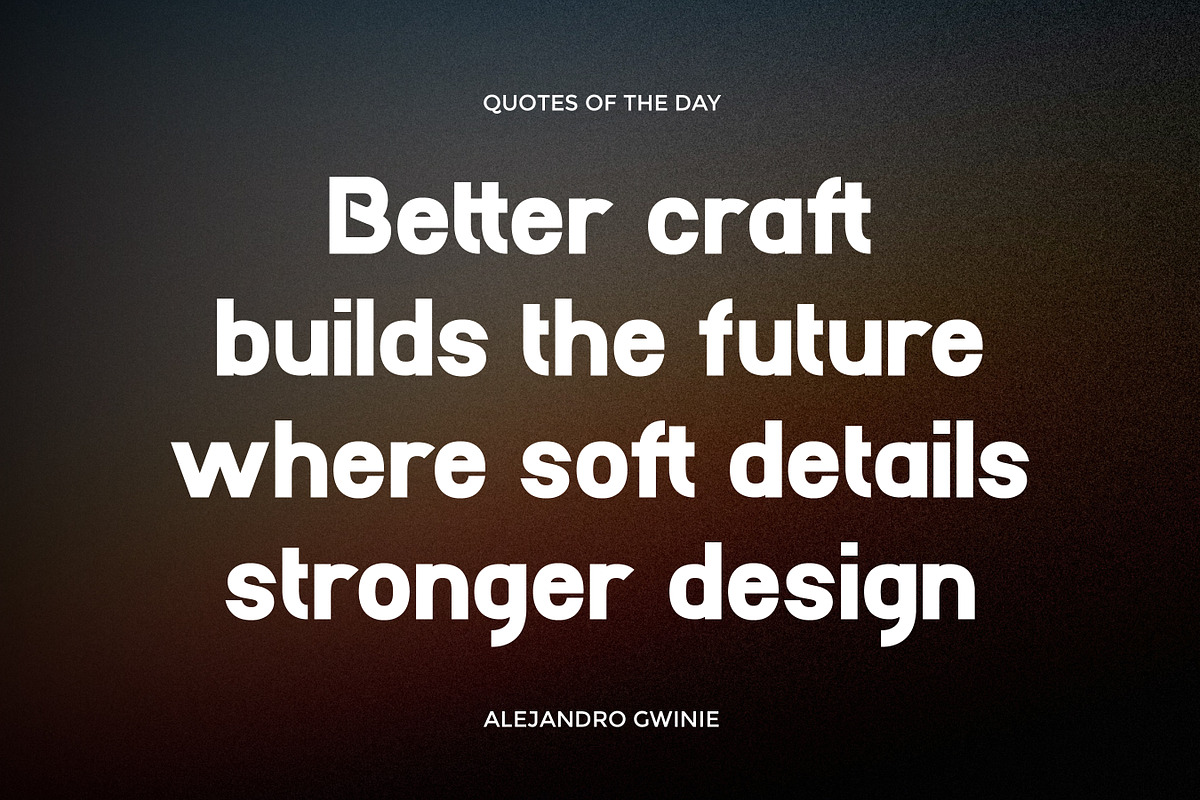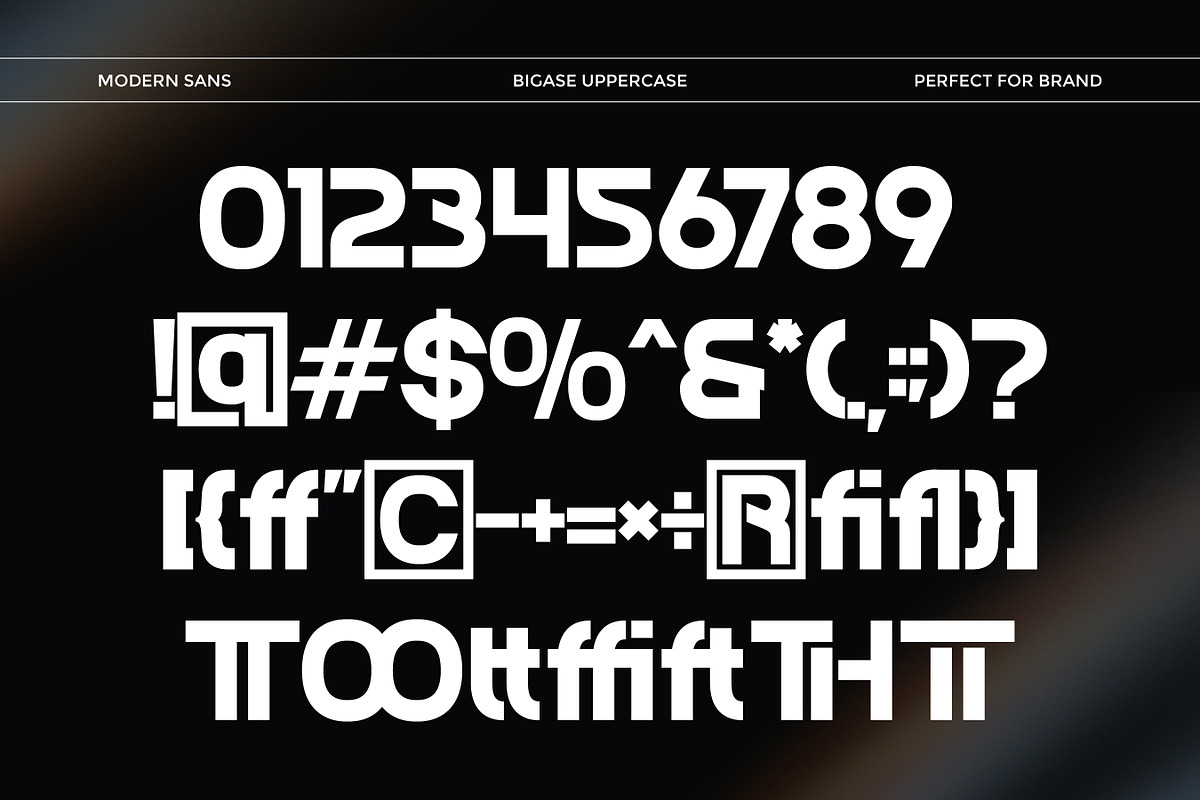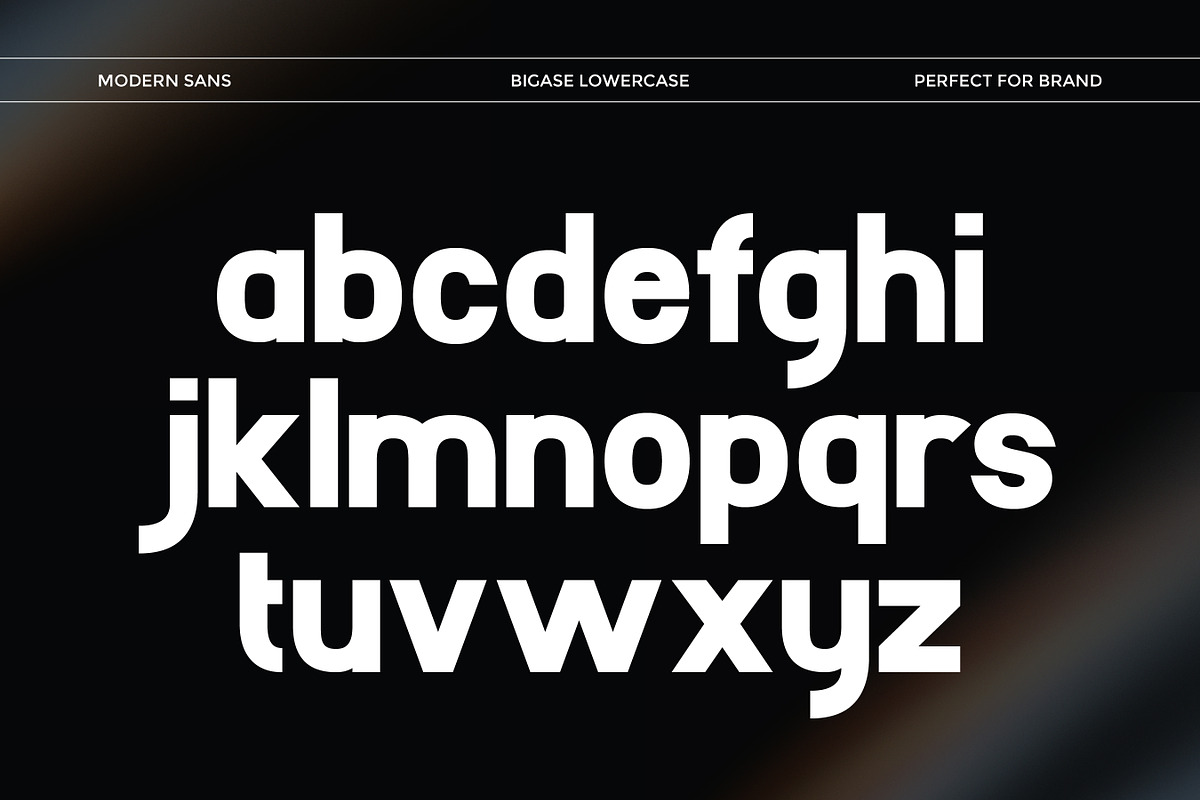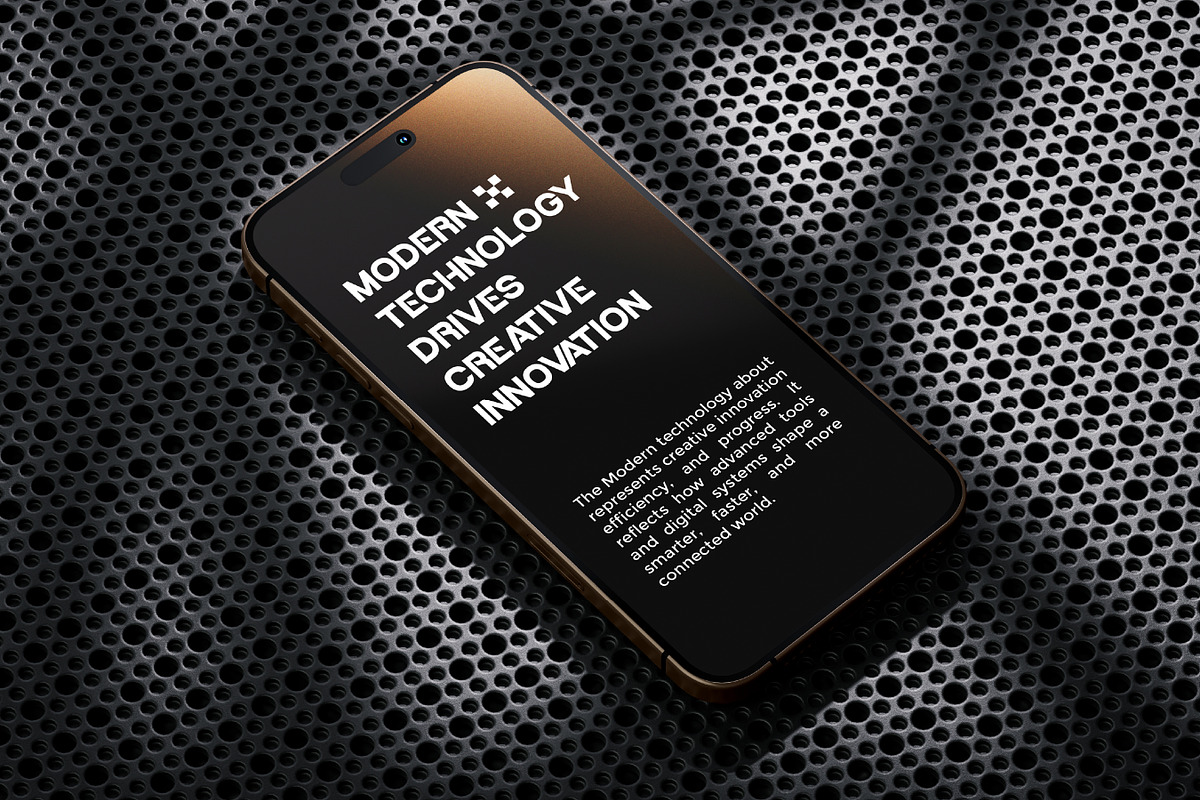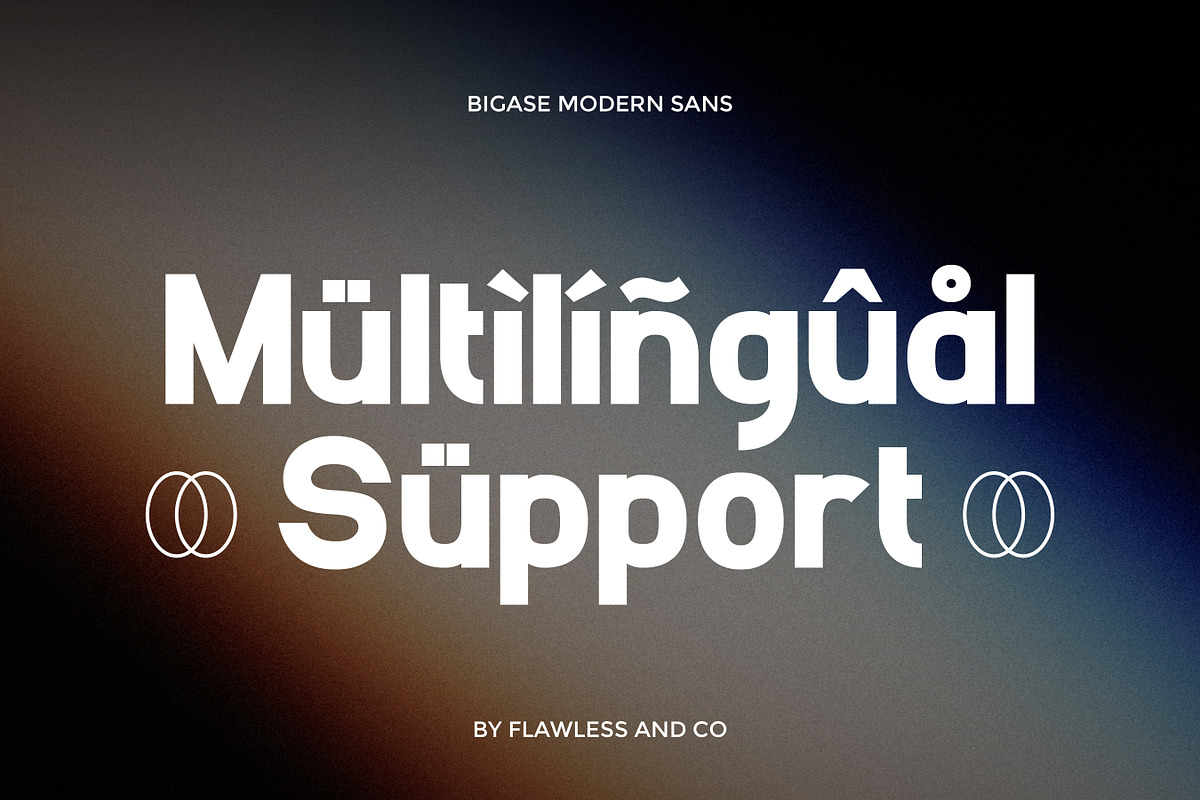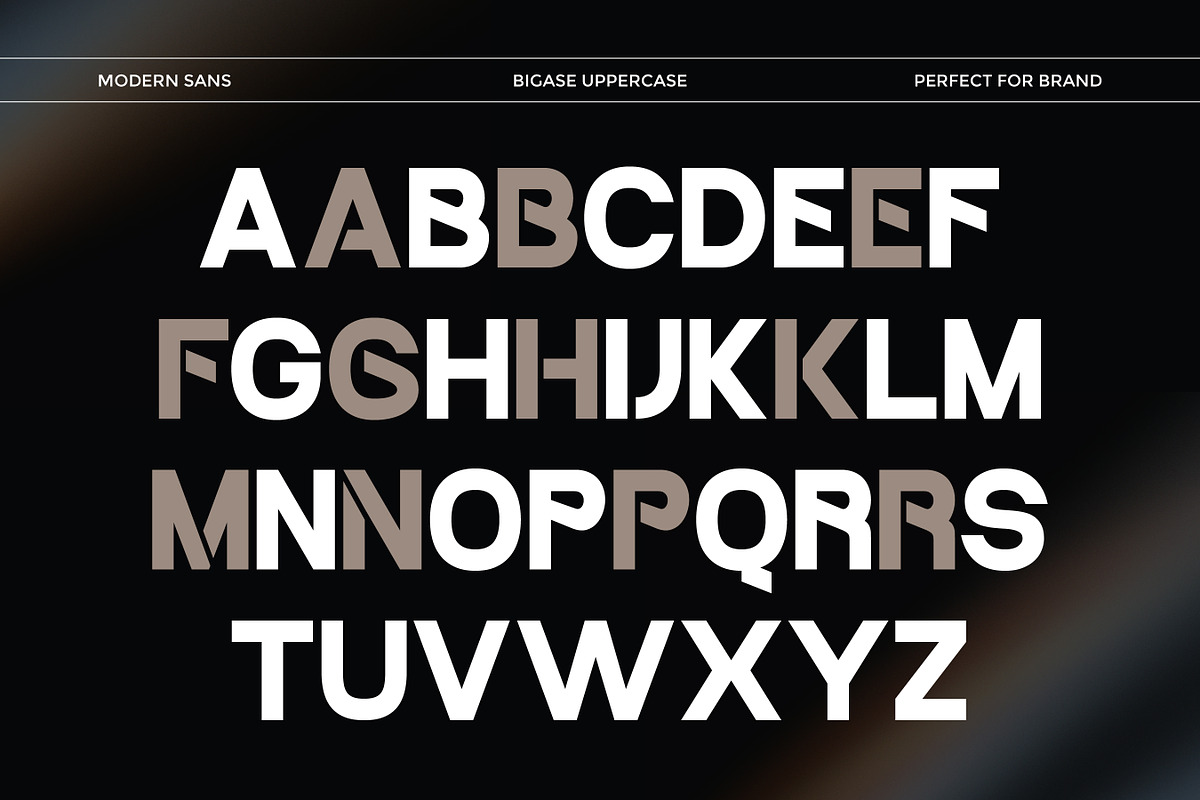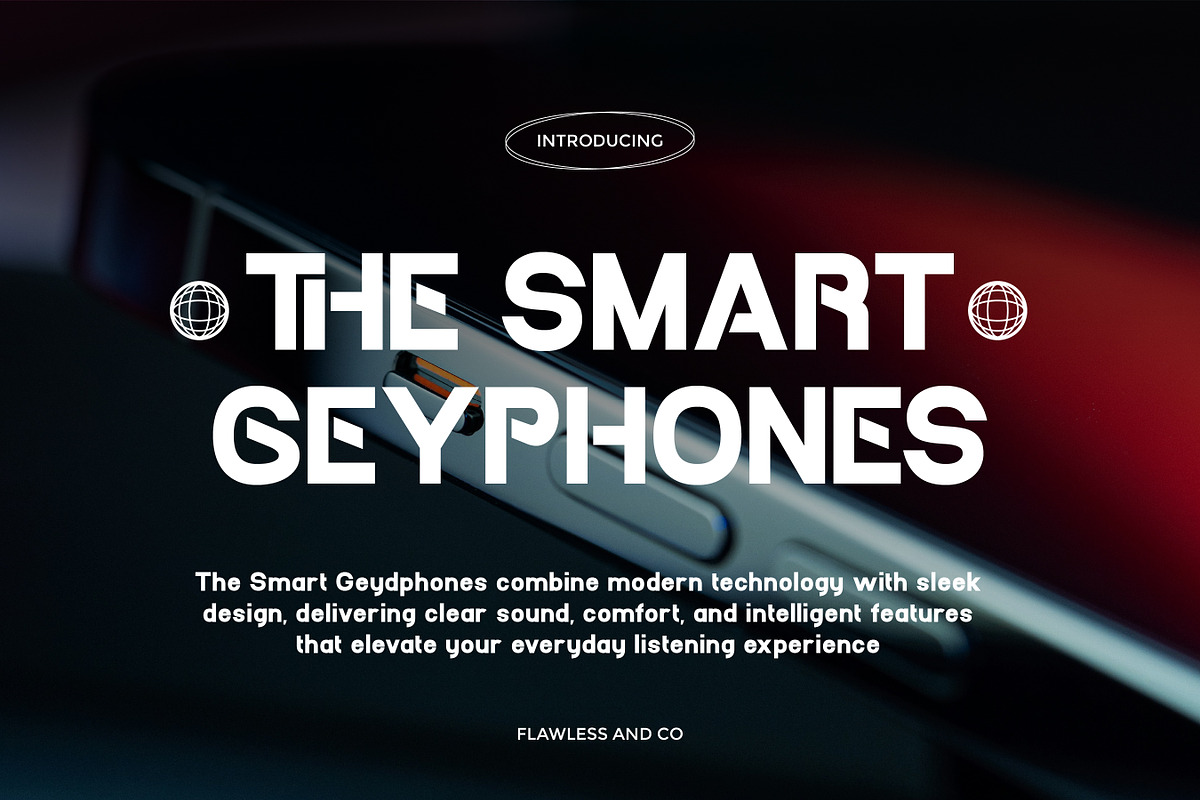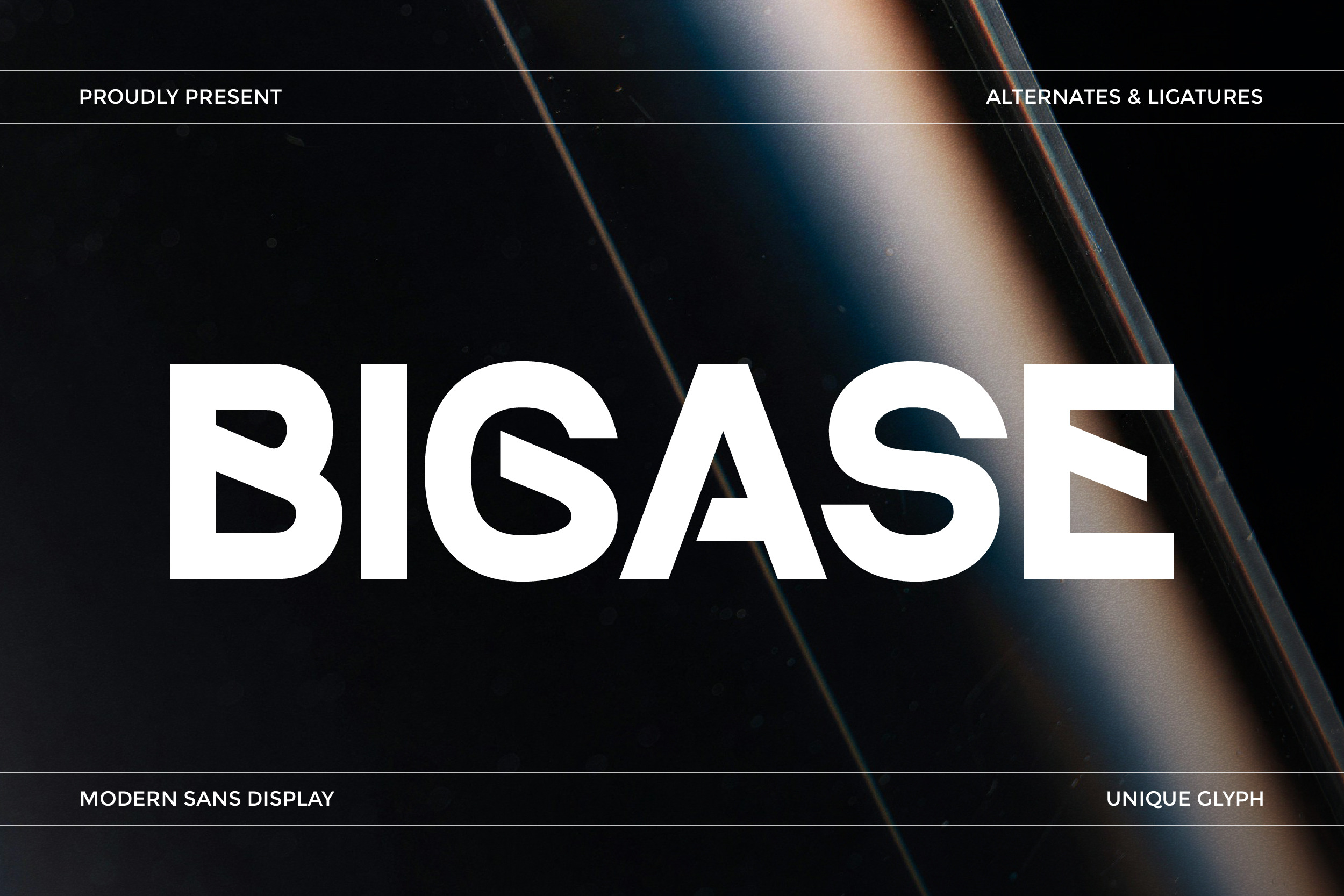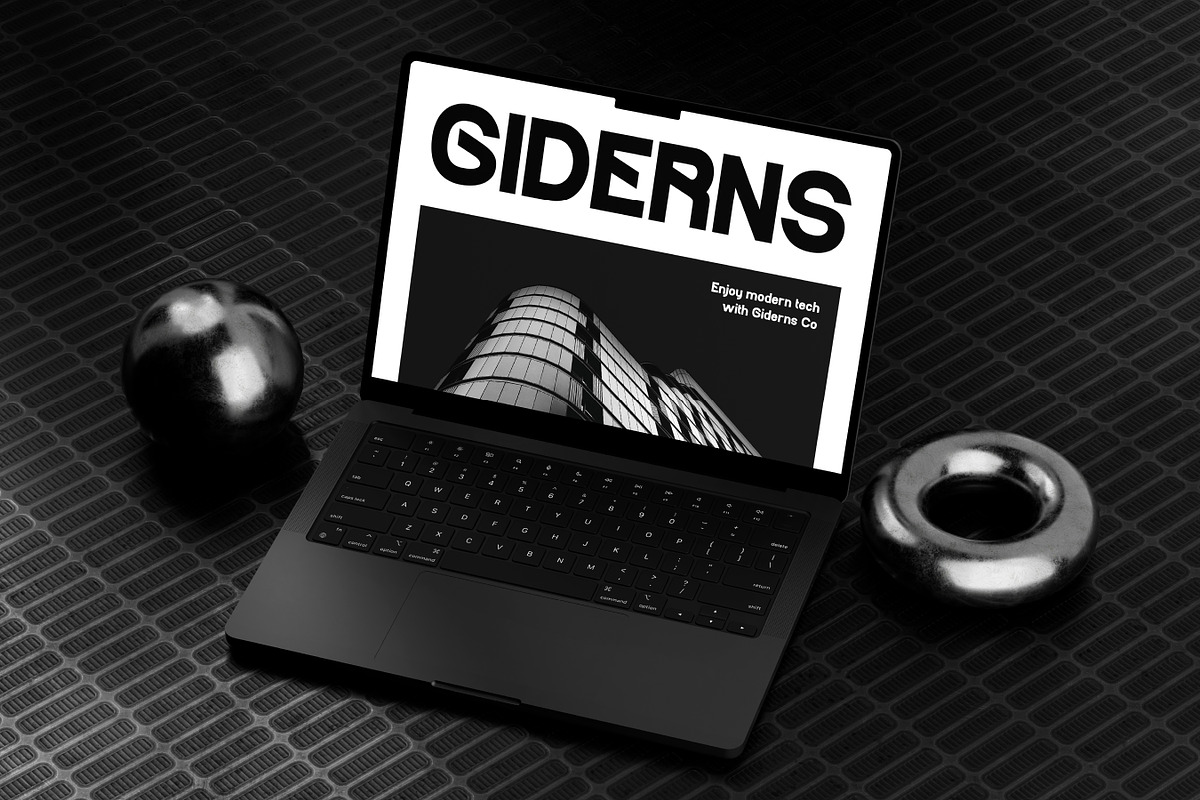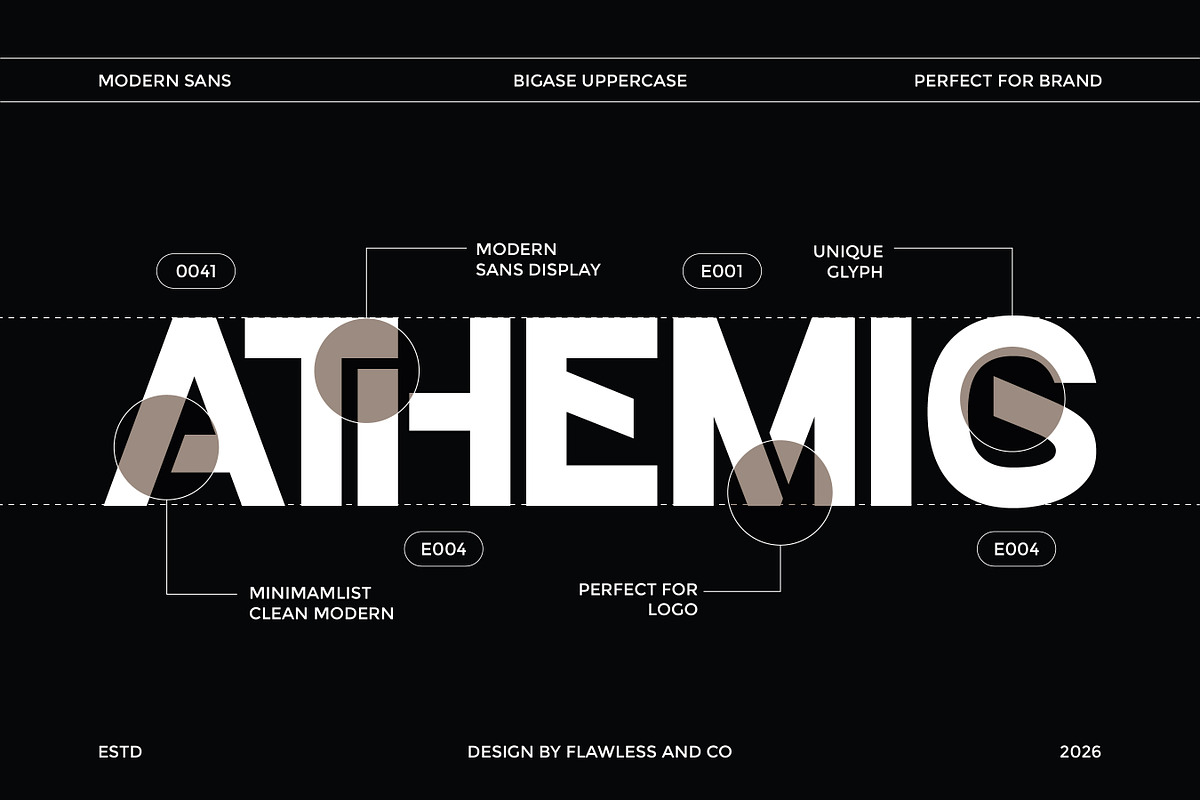
Bigase - Modern Sans Display Font
Bigase is a bold modern sans display font that combines clean geometry with a strong visual attitude. Designed to stand out, its sharp lines and confident letterforms create a powerful and contemporary look that instantly draws attention. The simplicity of its structure keeps it versatile, while its bold presence ensures your message is always clear and impactful.
Who Should Use Bigase?
Bigase is perfect for designers, creatives, and brands who want a strong and modern typeface that communicates confidence. It’s especially ideal for projects that require bold, clean, and high-visibility typography.
Suitable For:
- Modern branding and logos
- Bold headlines and posters
- Advertising and campaigns
- Social media content
- Editorial and layout design
- Packaging design
- Web and digital design
- Contemporary typography